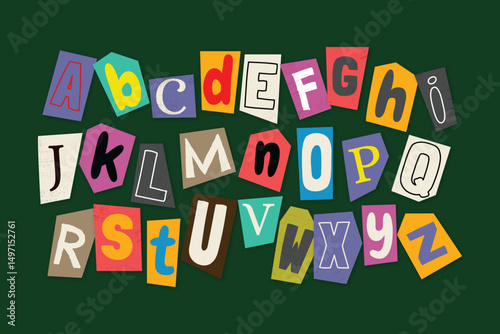
Ransom cut out color letters. Numbers, punctuation marks. Ransom note collage vector alphabet trendy paper style blackmail ransom kidnapper criminal anonymous or detective scrap font. Compose your own